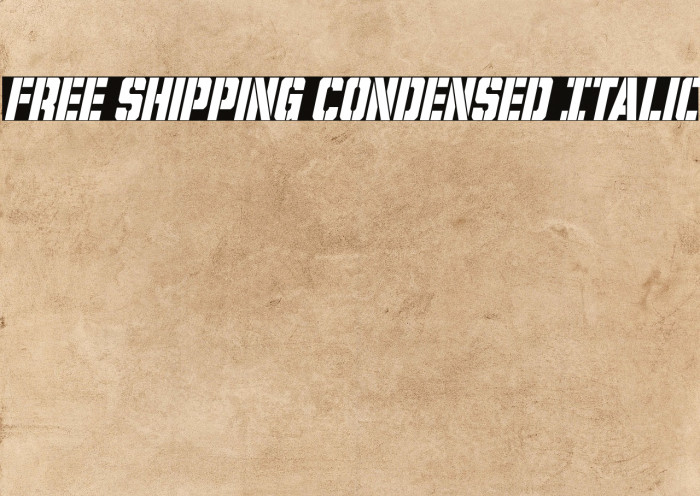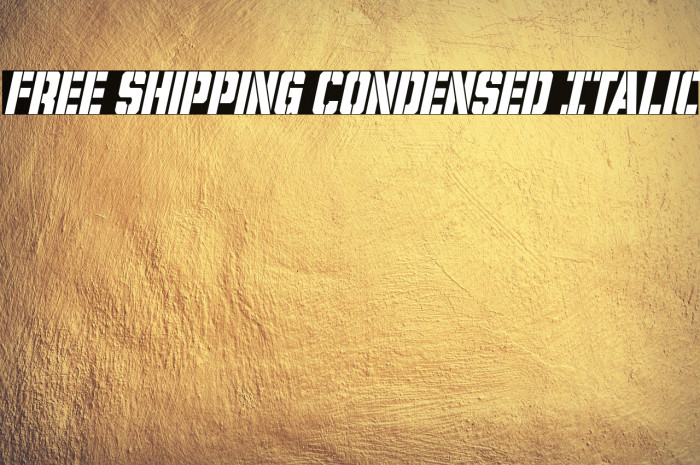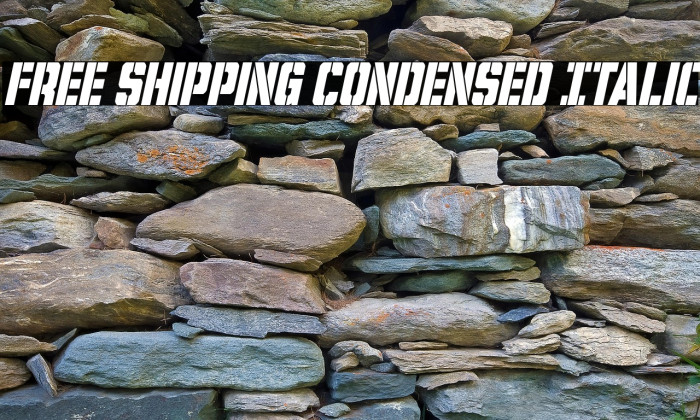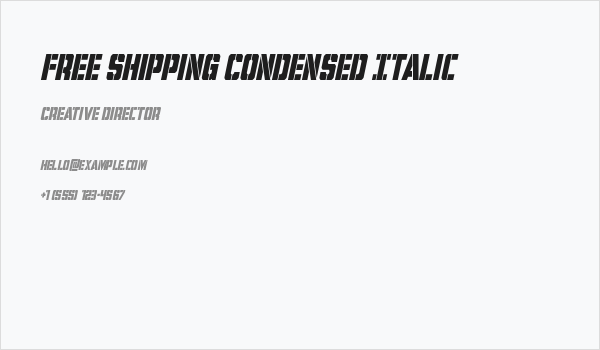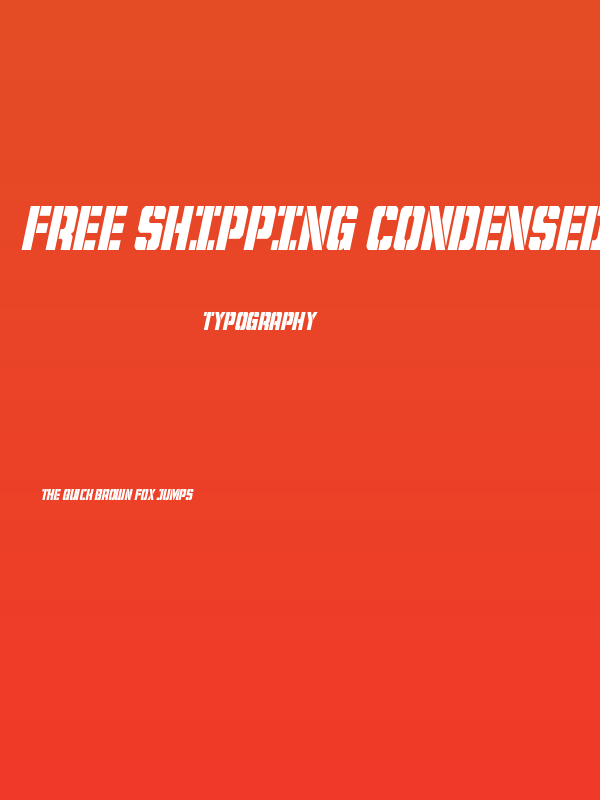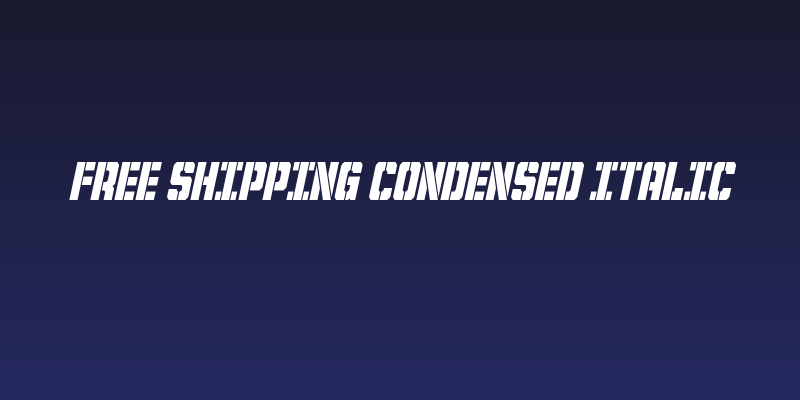
Free Shipping Condensed Italic Font
Free Shipping Condensed Italic Description
This font features a bold, italicized style with a condensed width, giving it a strong and dynamic appearance. The characters are tightly spaced, enhancing its compact look. The strokes are thick and consistent, providing a high contrast that makes the font stand out. Its angular and geometric design elements contribute to a modern and assertive aesthetic, making it suitable for impactful headlines and attention-grabbing text. The font includes a full set of uppercase letters, numbers, and a variety of special characters, ensuring versatility in design applications.